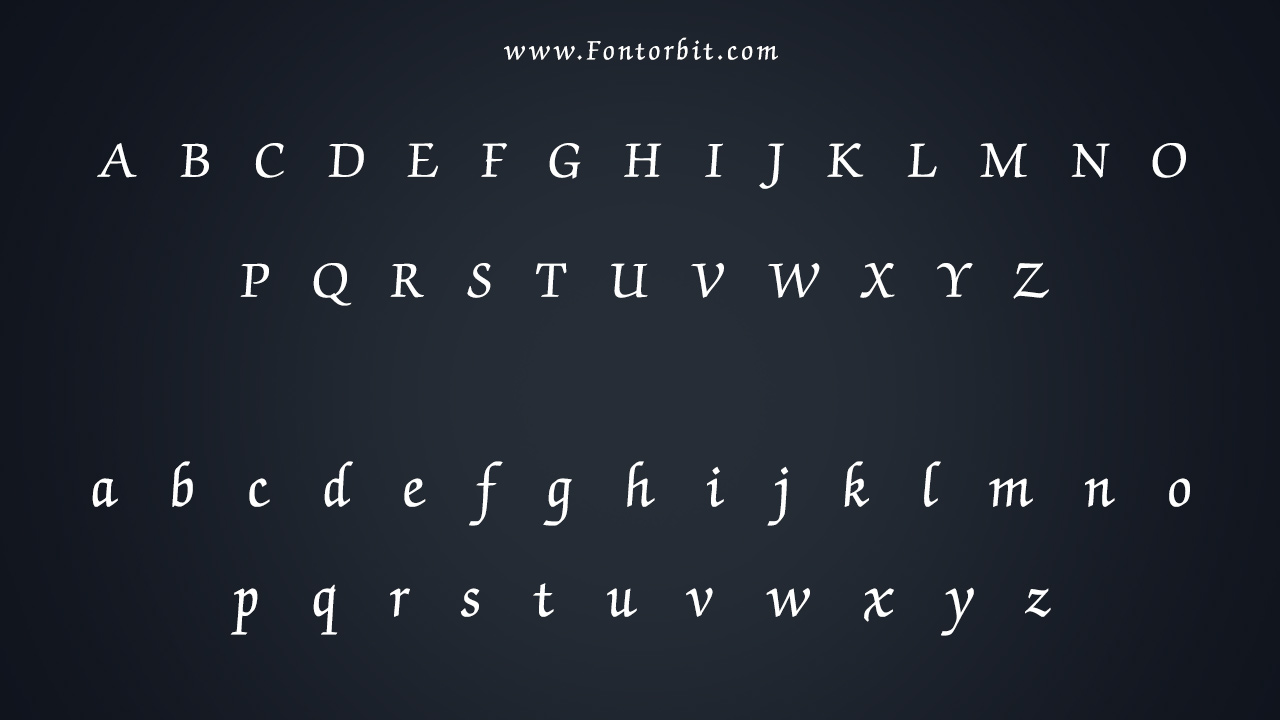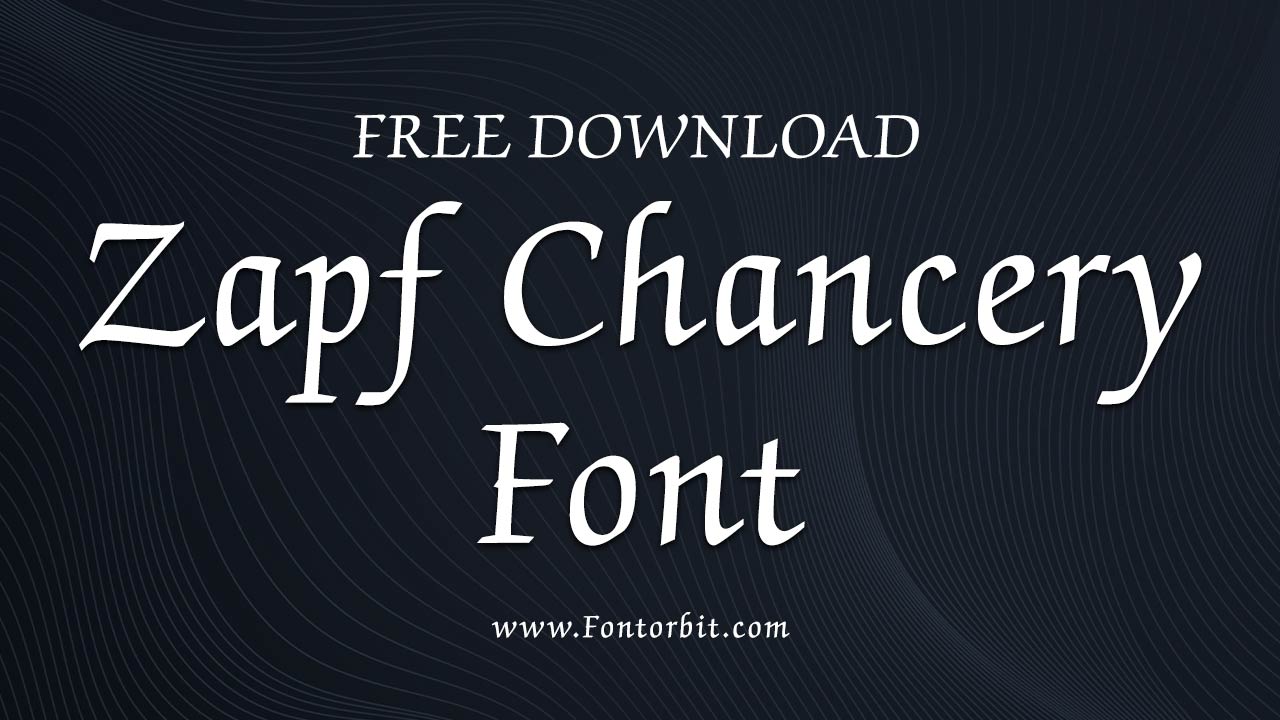
Zapf Chancery is a distinctive calligraphic typeface designed by Hermann Zapf. First published in 1979 by ITC (International Typeface Corporation), this font embodies elegance and readability. The typeface falls under the “Chancery” style, known for its cursive-like, flowing characters.
Zapf Chancery Family Includes
Zapf Chancery is available in several weights and styles, making it versatile for various design needs. Here’s a list of the main font family options:
- TeX Gyre Chorus Medium Italic
- ITC Zapf Chancery Pro Light
- ITC Zapf Chancery Pro Light Italic
- ITC Zapf Chancery Pro Roman
- ITC Zapf Chancery Pro Italic
- ITC Zapf Chancery Pro Demi
- ITC Zapf Chancery Pro Bold
Notable Uses Of Zapf Chancery
Zapf Chancery has been widely used in formal invitations, greeting cards, and various design projects requiring elegance and sophistication. It is often chosen for its stylish, cursive appearance that adds a personal and artistic flair to the text.
Zapf Chancery is ideal for:
- Formal Invitations
- Greeting Cards
- Artistic Projects
Zapf Chancery remains a timeless typeface renowned for its elegant and flowing script. Whether you’re crafting formal invitations or artistic projects, its classic design offers a sophisticated touch that enhances the overall aesthetic.
Its versatility and enduring appeal make it a valuable choice for any designer seeking to add a touch of grace to their work.
1.What is Zapf Chancery?
Zapf Chancery is a calligraphic typeface designed by Hermann Zapf, first published in 1979.
2.What is Zapf Chancery used for?
It is commonly used in invitations, greeting cards, and formal documents.
3.Is Zapf Chancery a good choice for branding?
Yes, it’s well-suited for brands needing an elegant and sophisticated appearance.
4.Can I use Zapf Chancery for web design?
Yes, it can be used in web design for a stylish, decorative touch.
5.What makes Zapf Chancery unique?
Its elegant, flowing style distinguishes it from other calligraphic fonts.
6.Where is Zapf Chancery most commonly used?
It’s commonly used in formal and artistic contexts.